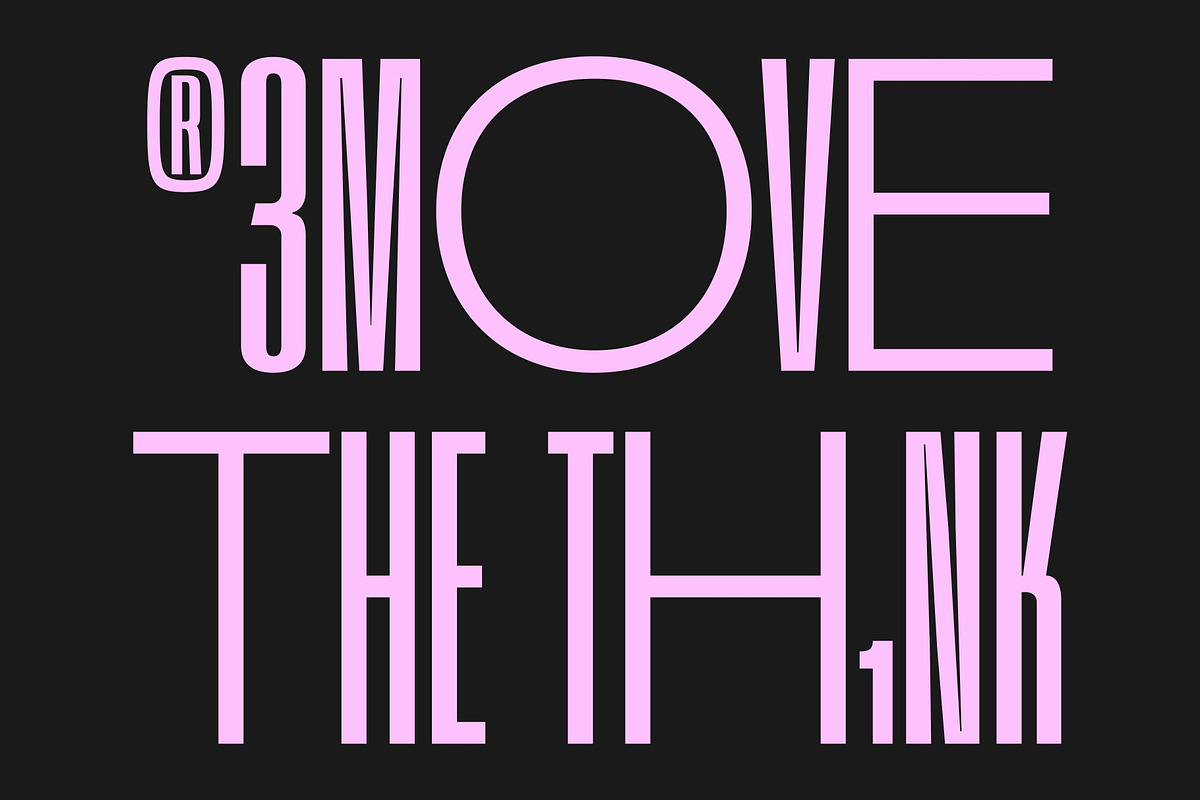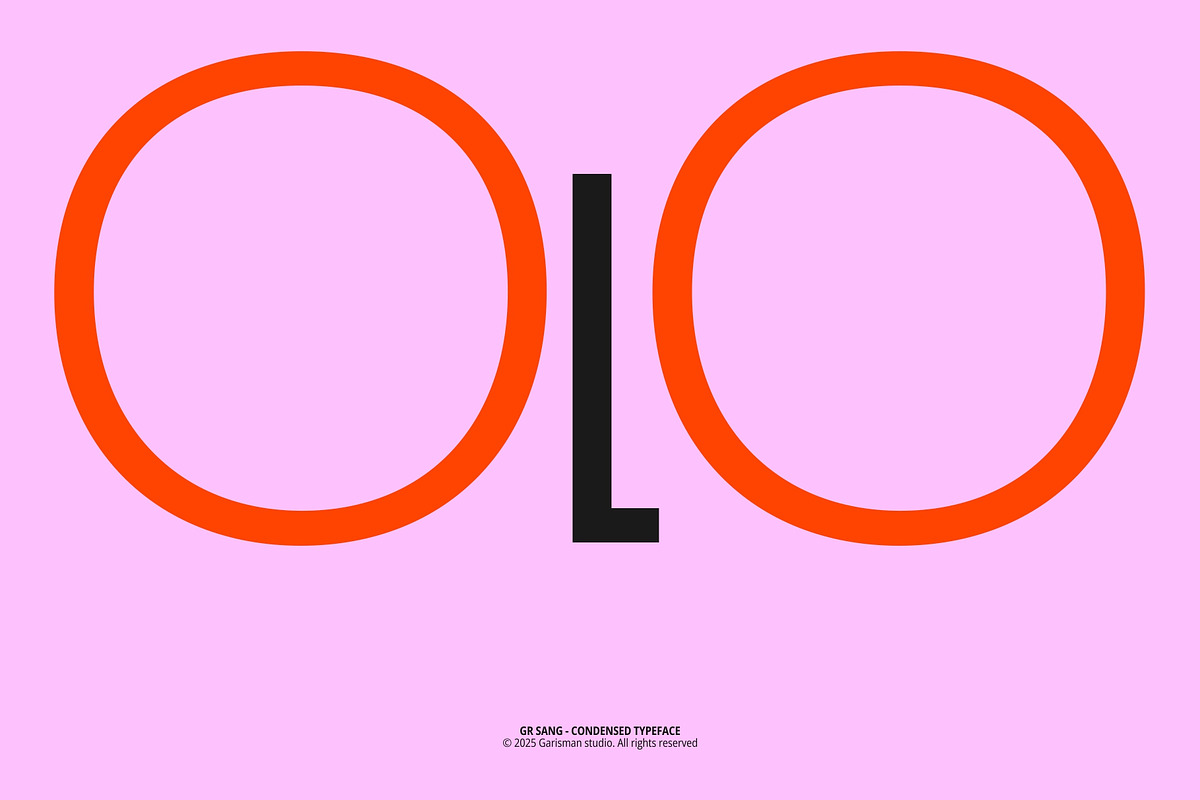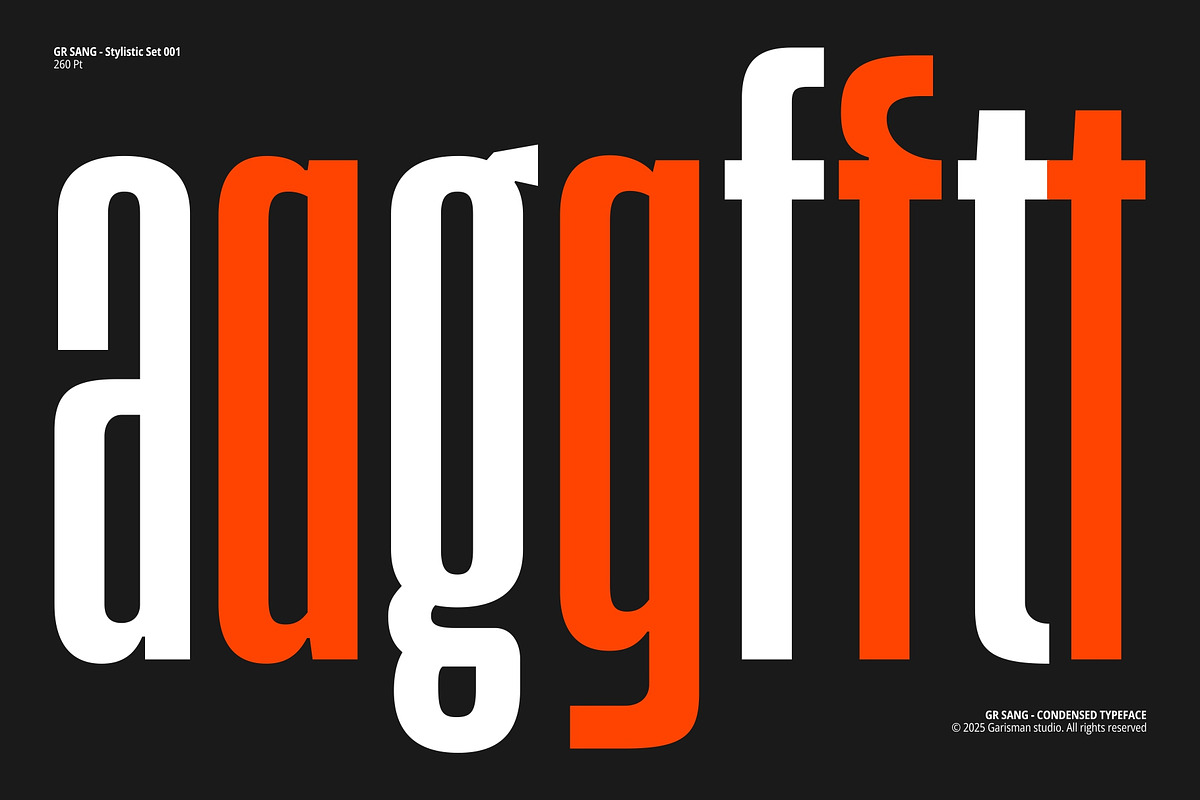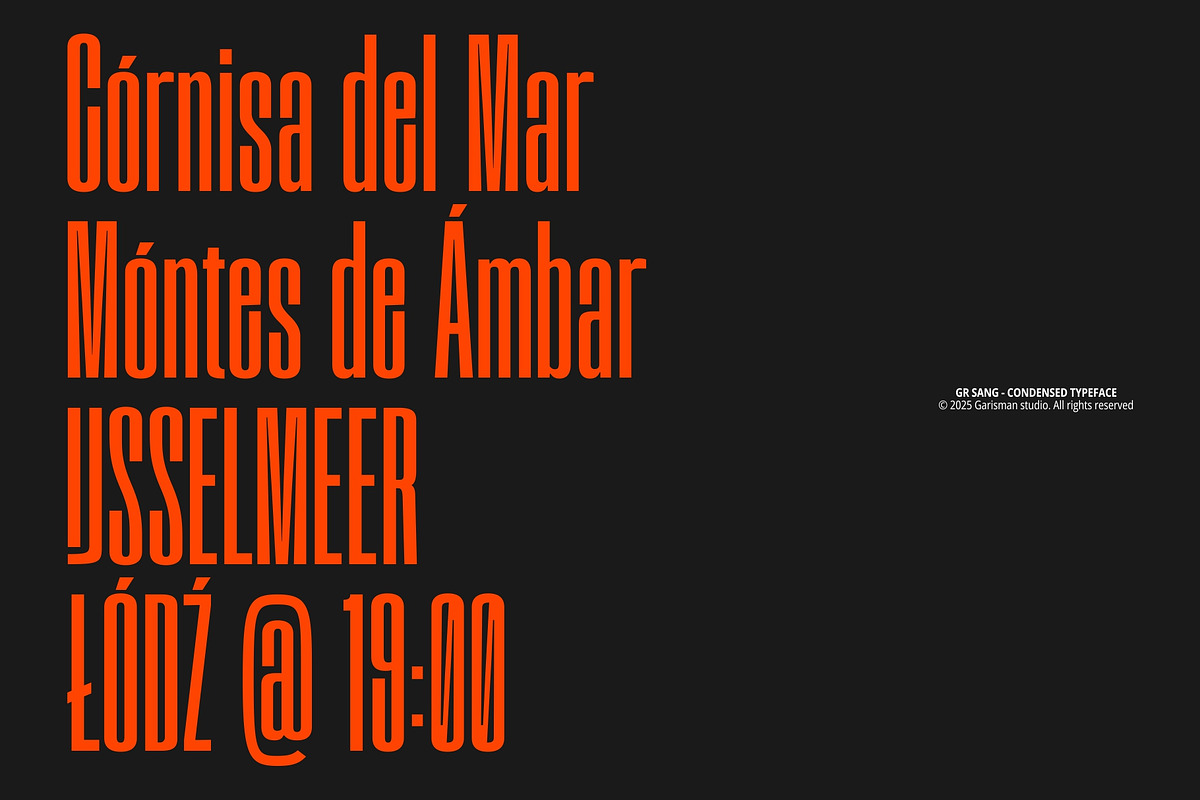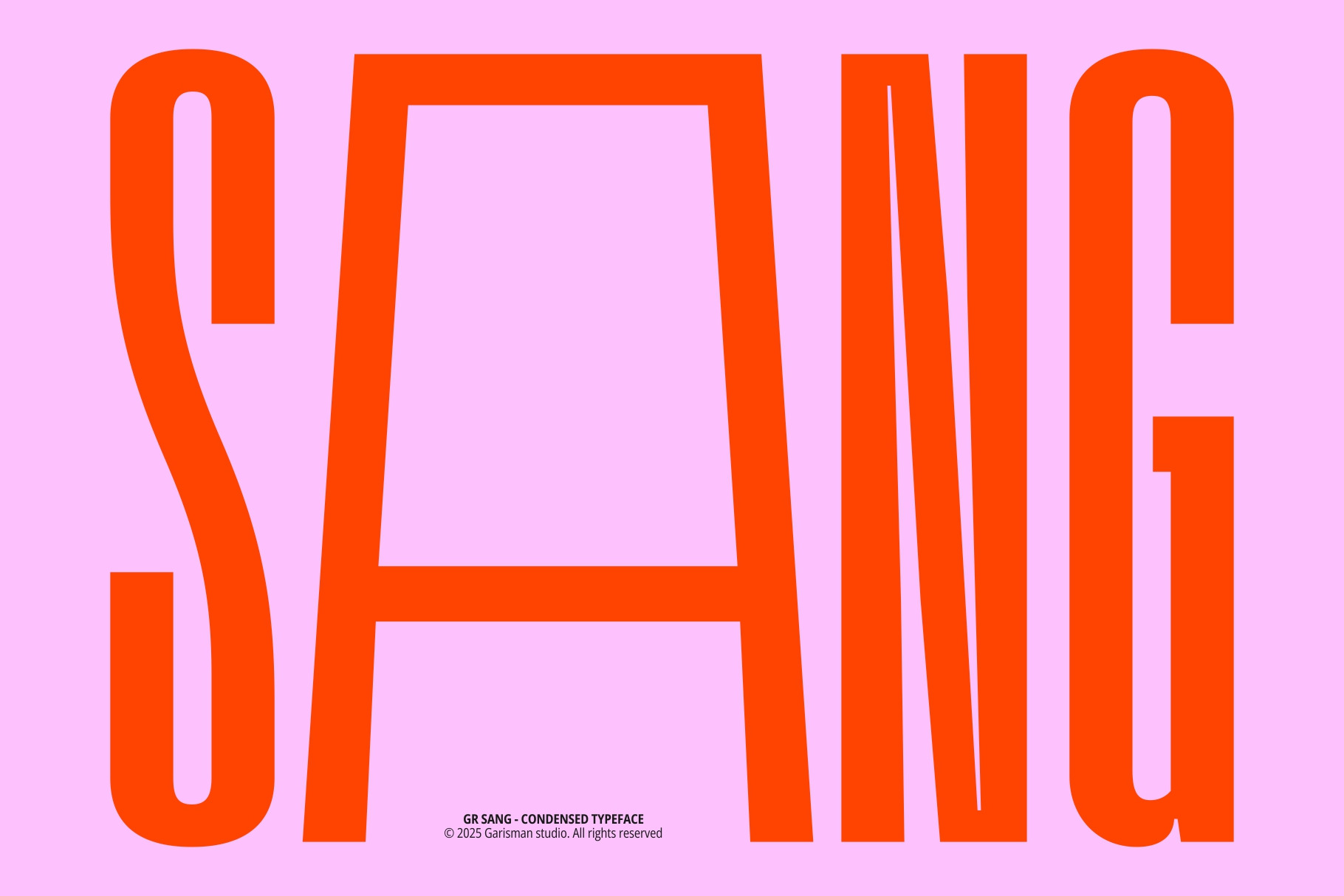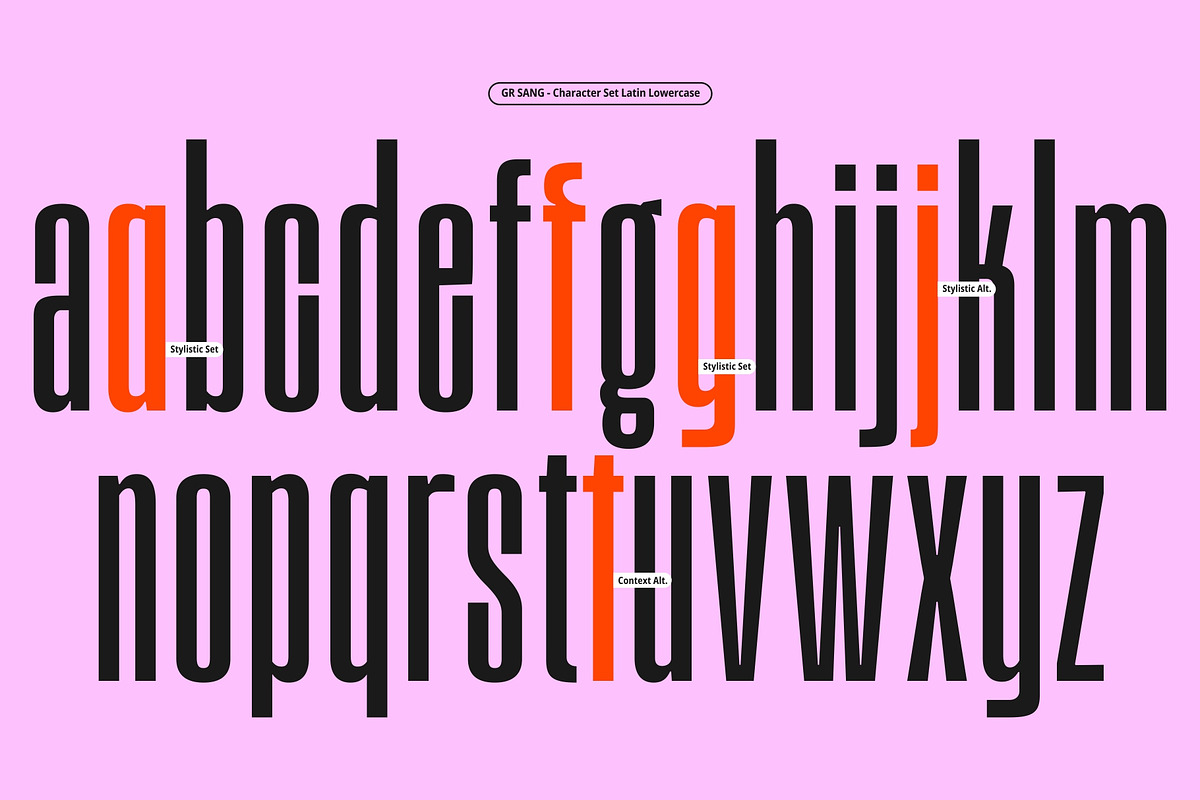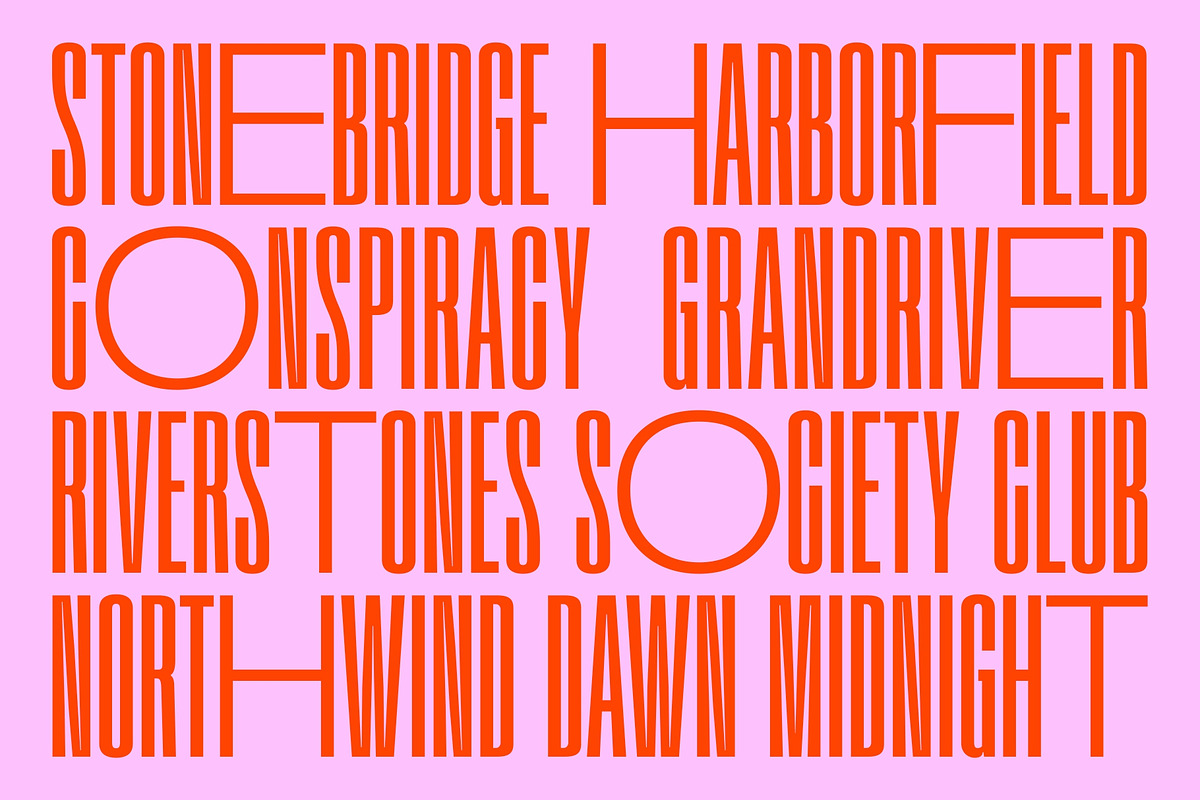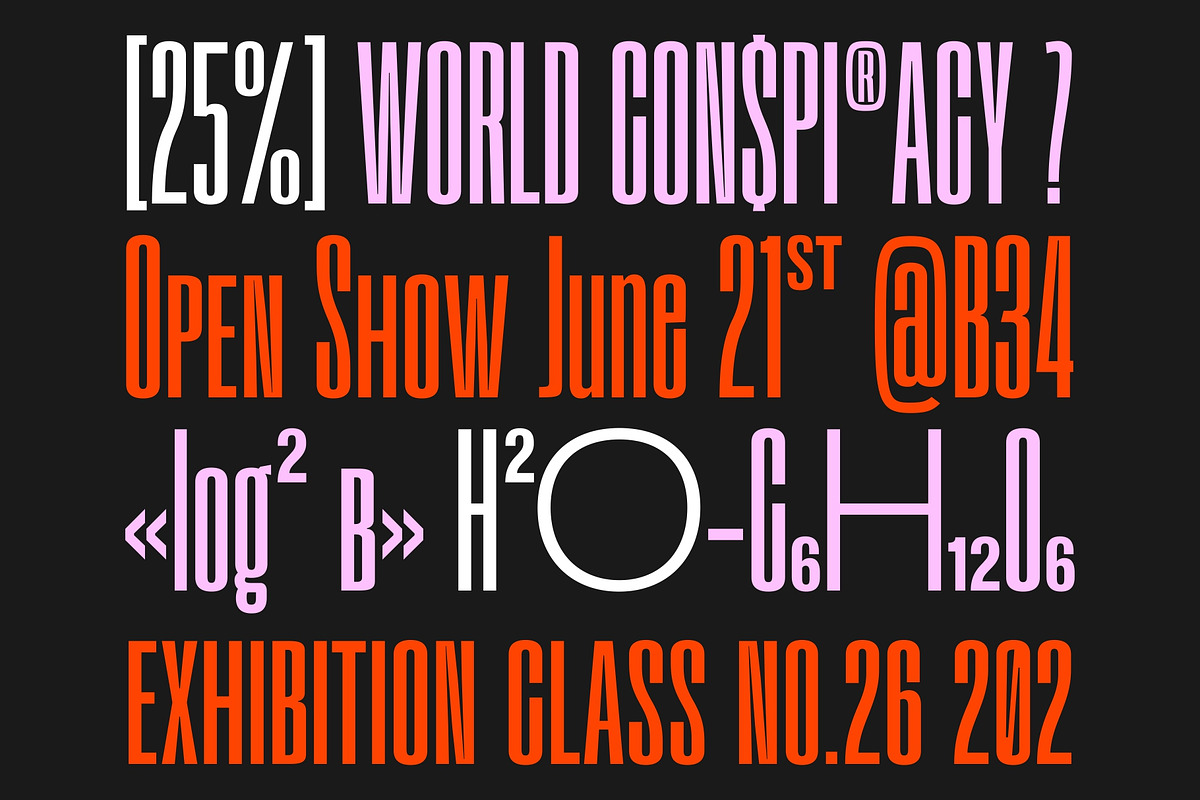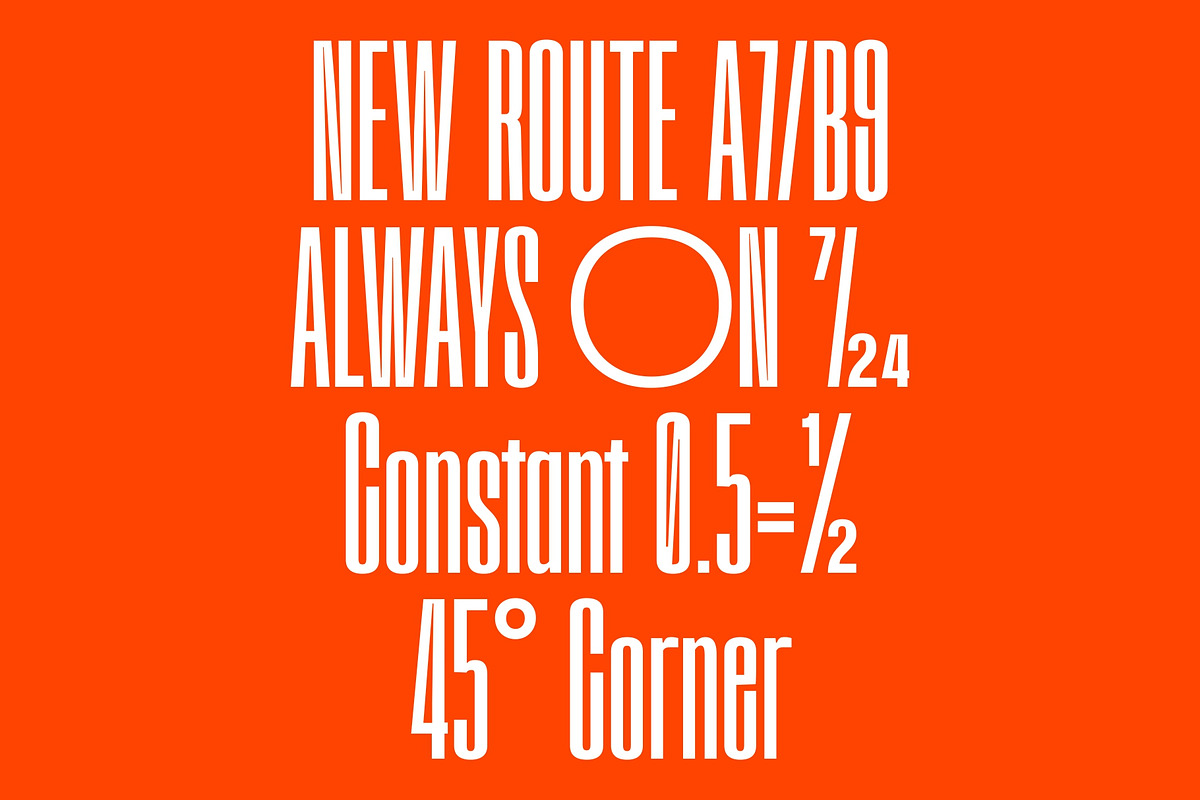
GR SANG - Condensed Display Typeface
Meet GR Sang, condensed sans serif display font built for bold, space-saving titles.
Its tall, narrow letters give you strong headlines and logos without crowding your layout, making it perfect for:
- Branding and logo design
- Posters and promo graphics
- Editorial titles and covers
- Signage and wayfinding systems
GR Sang keeps things simple and modern while offering a deep OpenType toolkit behind the scenes. You get small caps from caps, contextual alternates, denominators, fractions, ordinals, stylistic alternates, scientific inferiors, stylistic sets, subscript, superscript, and a slashed zero—everything you need for clean numbers, technical details, and flexible display typography.
If you’re looking for a condensed sans serif display font for headlines, titles, logos, and signs, GR Sang is a reliable modern option you’ll use across many projects.